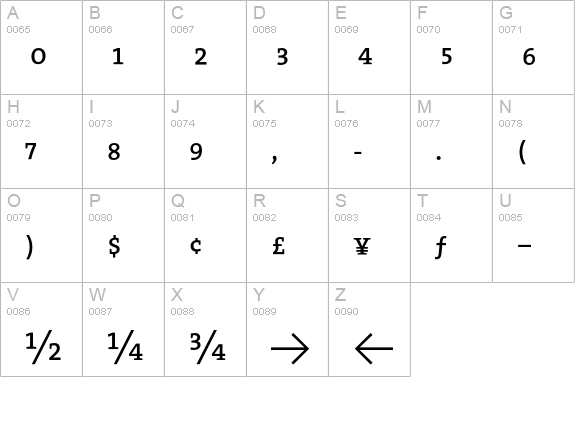
TheSerif SemiLight Expert font is a sophisticated and elegant typeface that effortlessly combines classic and modern design elements. With its delicate and refined appearance, this font is perfect for adding a touch of sophistication to any project. TheSerif SemiLight Expert font features a slightly condensed letterform, giving it a sleek and stylish look. The clean and crisp lines of the font make it highly legible, making it an excellent choice for both print and digital use. One of the standout features of TheSerif SemiLight Expert font is its versatility. It can be used for a wide range of design purposes, from logos and branding to headlines and body text. Its timeless appeal makes it suitable for a variety of industries, including fashion, luxury, and lifestyle. One of the best things about TheSerif SemiLight Expert font is that it is free to download. You can easily access and enjoy this font without any cost or hassle. Simply visit FontsMarket.com, where you can find the font available for free download, ready to enhance your design projects. TheSerif SemiLight Expert font offers a comprehensive character set, including uppercase and lowercase letters, numerals, punctuation marks, and special characters. This ensures that you have all the tools you need to create stunning and professional-looking designs. Whether you are a graphic designer, a web developer, or simply someone looking to add a touch of elegance to your personal projects, TheSerif SemiLight Expert font is a fantastic choice. Its timeless beauty, versatility, and the fact that it is freely available for download at FontsMarket.com make it a must-have in every designer's toolkit. So why wait? Download TheSerif SemiLight Expert font today and let your creativity soar.